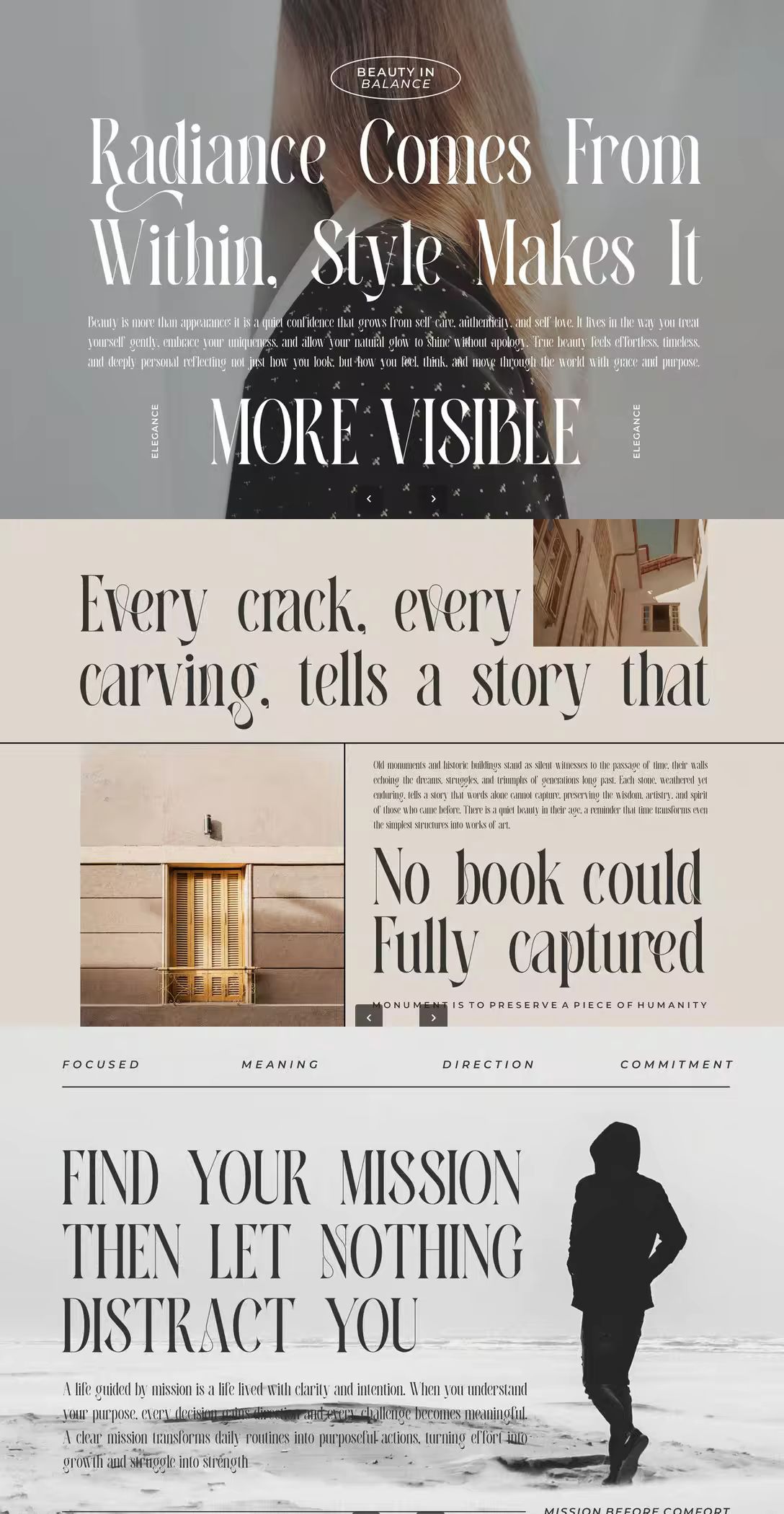
Ravemy Serif is a elegant and classy font type for all branding and logo designs. This elegant and classy Serif font has a beautiful character. This font is suitable for invitation card designs, cool logos, movie titles, movie names, business cards, book titles, brand names, and various other designs. Ravemy Serif is a smooth serif font that exudes sophistication and the moment. Its stylish ligatures make this font a perfect partner for any project.
Ligature